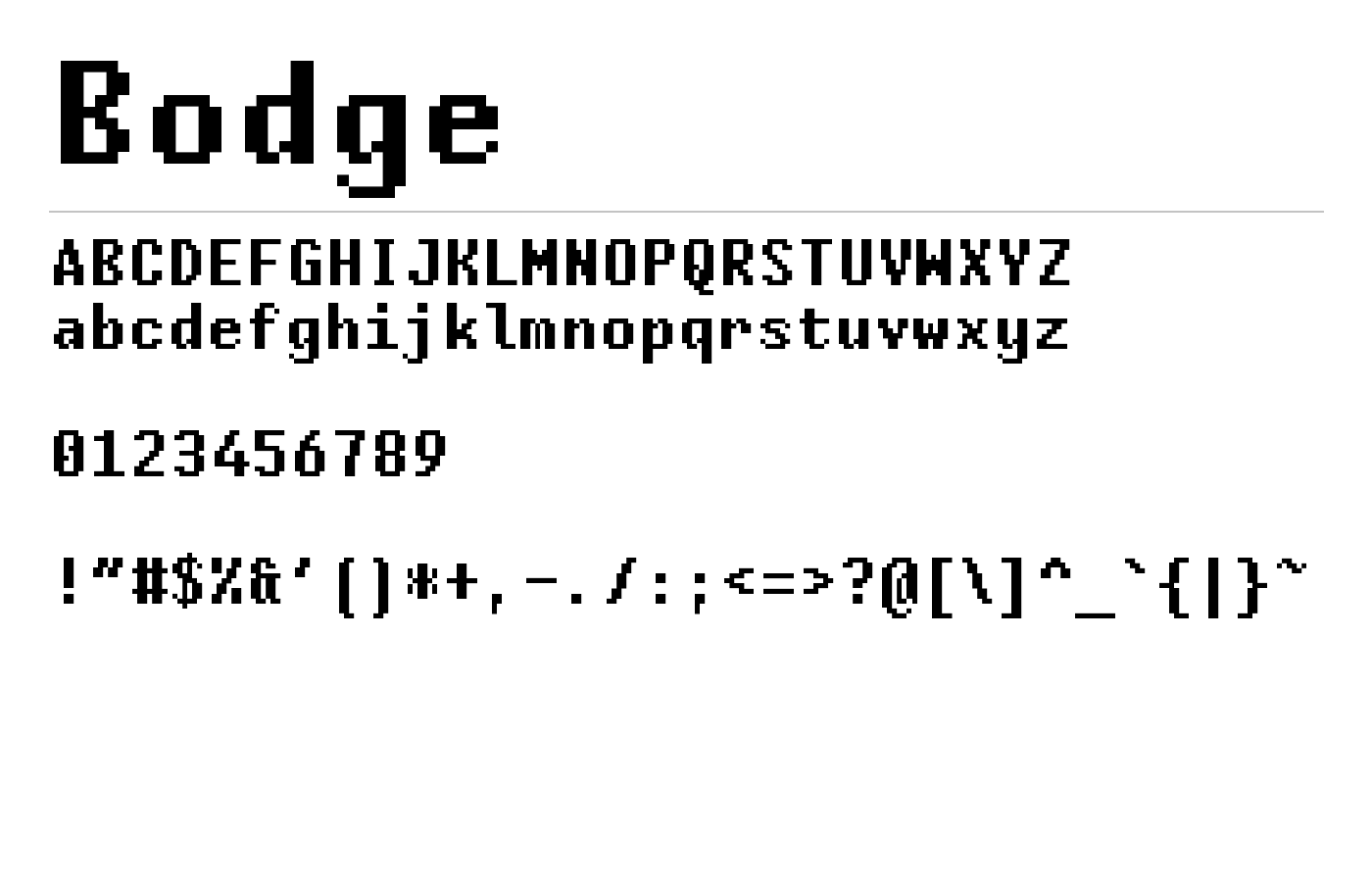
Bodge Font is a pixelated, monospaced sans serif typeface with a retro digital feel, characterized by its blocky, low-resolution style reminiscent of early computer text. It features consistent stroke weight and simple geometric shapes, making it perfect for designs that evoke nostalgia, gaming, or tech themes. This font works well in headlines, pixel art, and UI elements where a vintage, digital aesthetic is desired.
Bodge Font